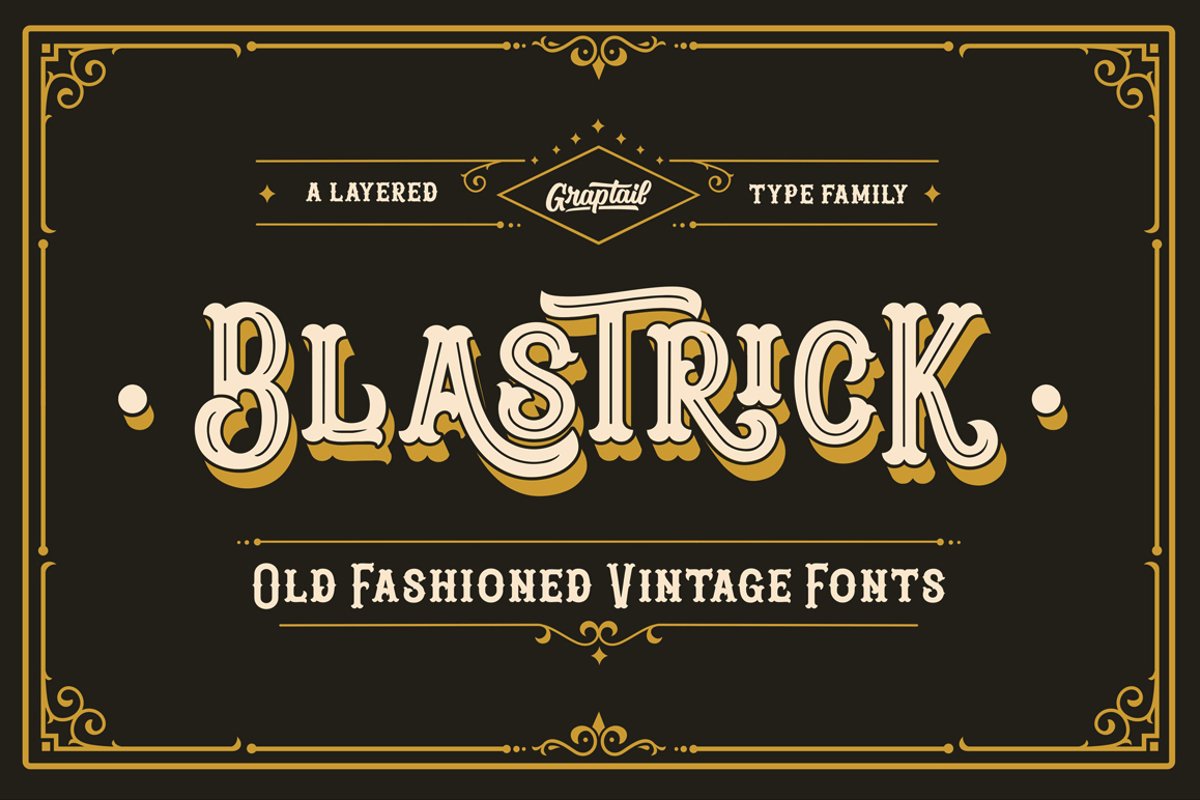
Blastrick
Blastrick is a vintage layered type system with endless design possibilities using different combinations of fonts and colors. Achieve a realistic 3D effect by adding the shadow font or just use the capital letters of the regular and bold cut for stark artwork.
• Swash
• Standard Ligatures
• Contextual Alternates
• All Alternates